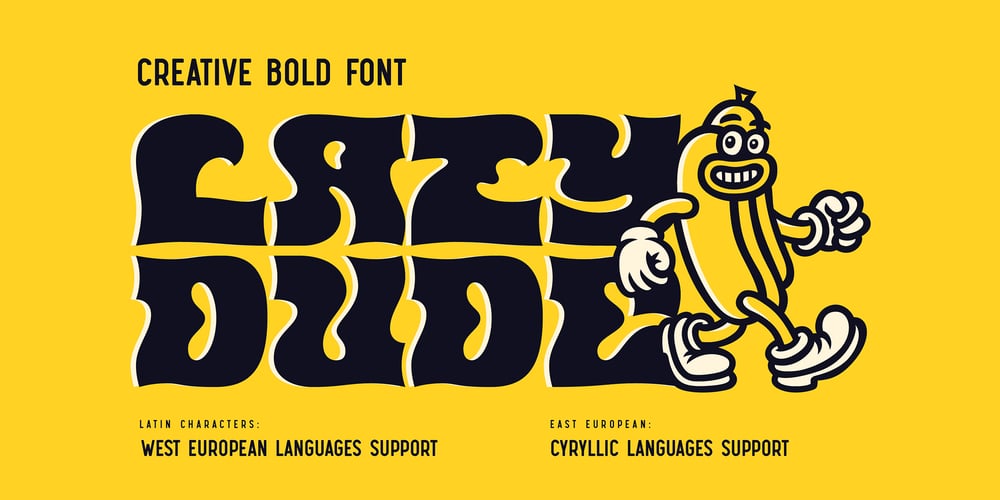
Lazy Dude Font Family was designed by Gleb Guralnyk and published by Gleb Guralnyk. Lazy Dude contains 1 styles and family package options. Hi, introducing a creative bold font Lazy Dude. It’s an all caps typeface with smooth curvy shape. Lazy Dude has a wide languages support with west european and cyrillic characters (check out all available characters on previews). Thank you and have a nice day!